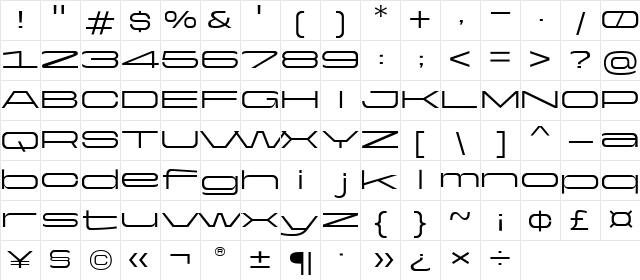
Yapari Extd Regular Free Font
Yapari Extd Regular
Foundry: Power Type￿ Foundry
Designer: Teguh Arief
Yapari Extd Family
Yapari Extd Regular
Complete Yapari Extd Regular glyph index. Displaying only characters natively supported by Yapari Extd Regular font.
Design Context for Yapari Extd
Yapari Extd is a composed and adaptable typeface that performs quietly and consistently across a wide range of design contexts.